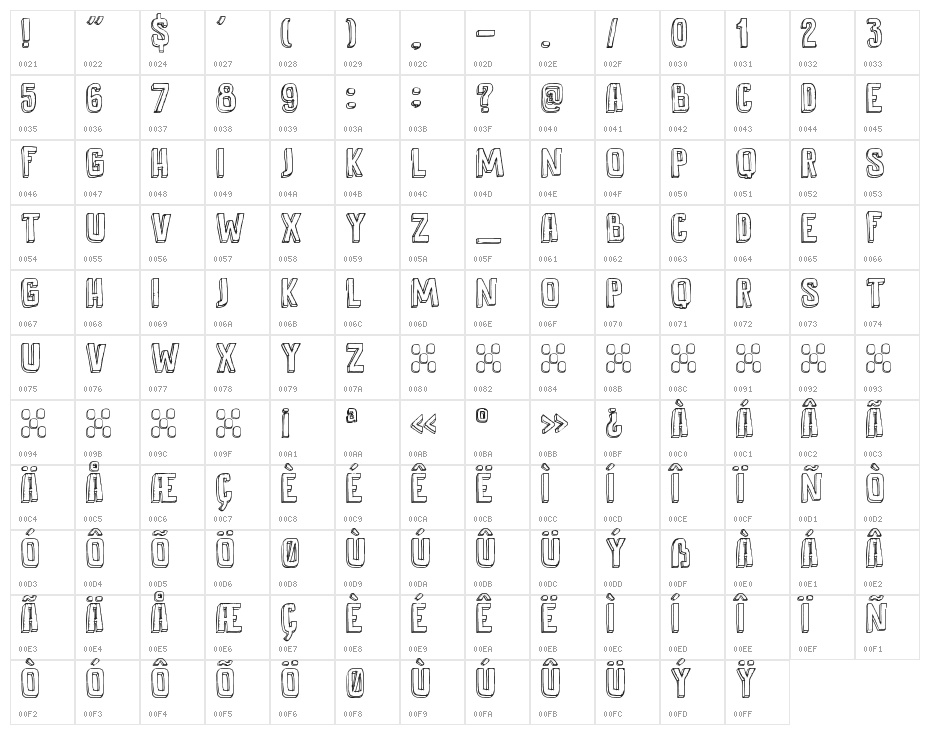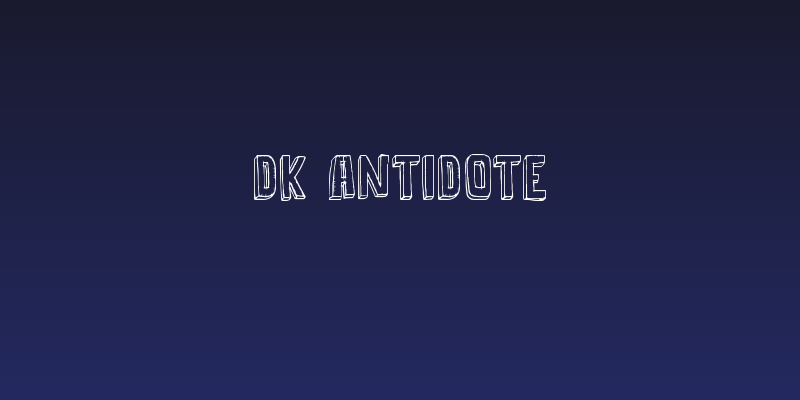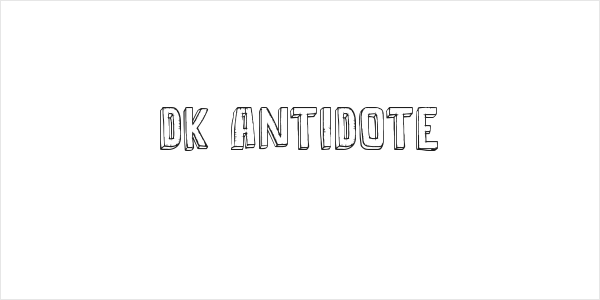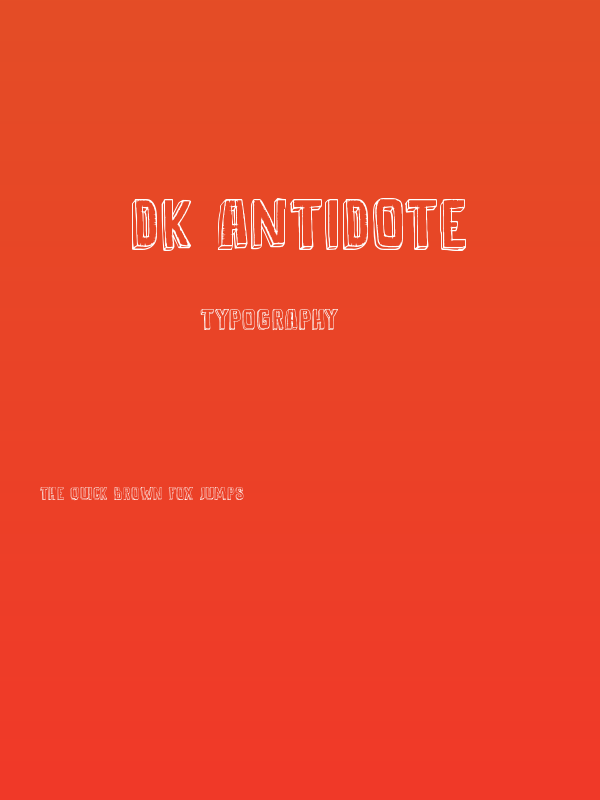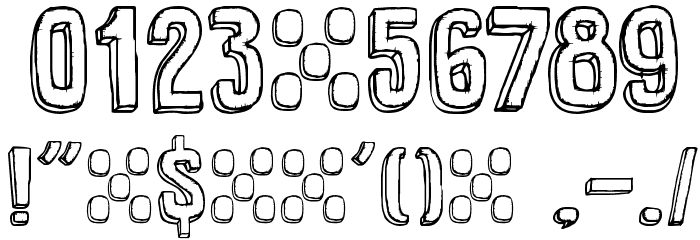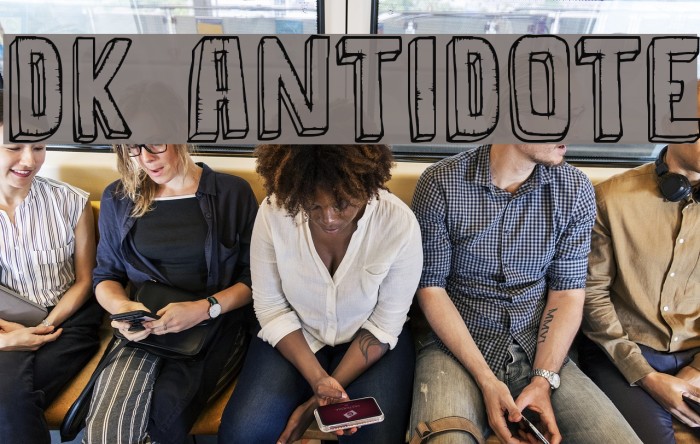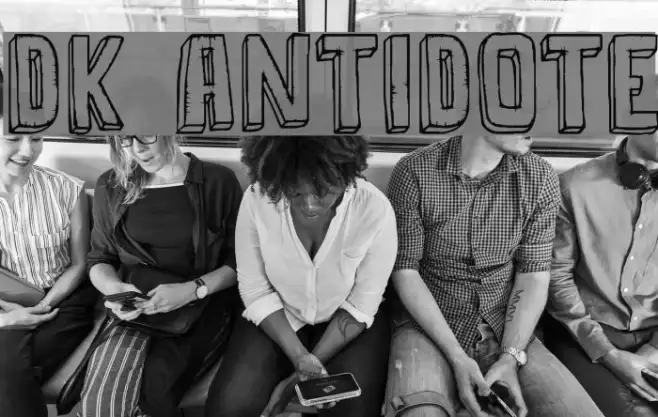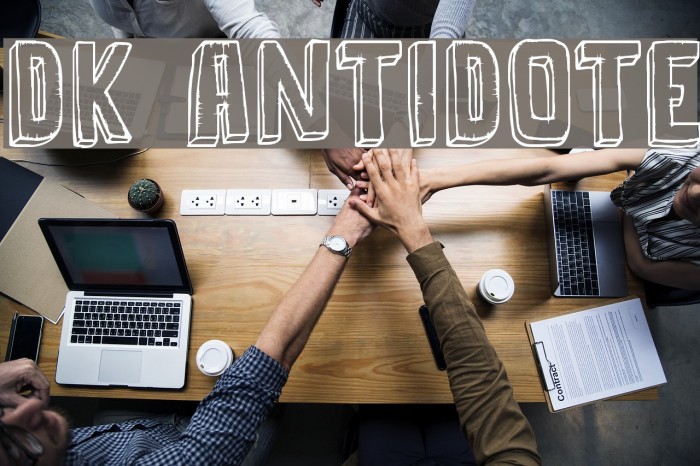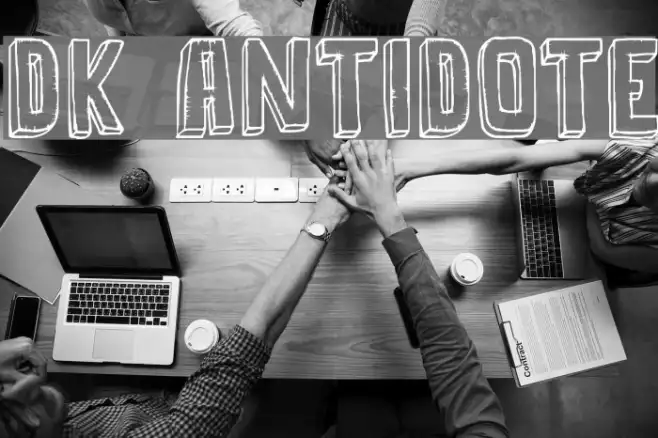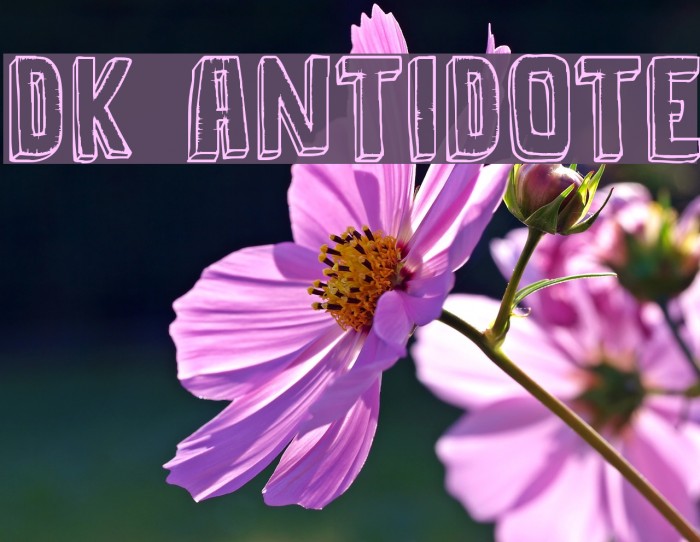
DK Antidote Font
DK Antidote Description
This font features a bold, hand-drawn style with a playful and slightly rough appearance. Each character is outlined with a thick, uneven stroke, giving it a three-dimensional look. The letters have a casual, sketch-like quality, reminiscent of doodles or graffiti art. The uppercase and lowercase letters maintain a consistent style, with rounded edges and a slightly irregular form. Numbers and special characters follow the same aesthetic, ensuring a cohesive look across all glyphs. This font exudes a sense of creativity and spontaneity, making it ideal for projects that require a fun and informal touch.
| Overall Style | Playful, Creative, Hand-drawn |
| Use Case | Headlines, Posters, Creative Branding |
| Proposed Projects | Ideal for comic books, children's books, playful branding, posters, and creative social media graphics. |